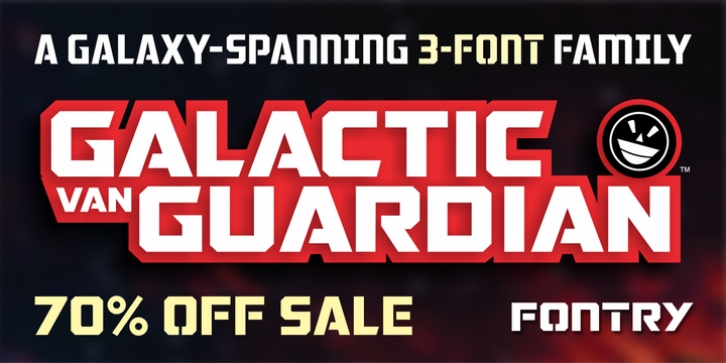
The celluloid has been minted -- digitally of course -- flora and fauna are speaking and even walking. The universe is a wide-open space, a collection of mysterious galaxies and celestial things capable of destroying entire worlds. Enter the latest offering by the Fontry, a 3-font family eager to add its weight to an ongoing typographical battle that will span the stars.